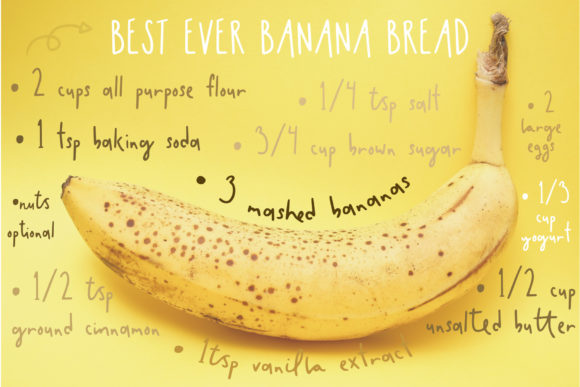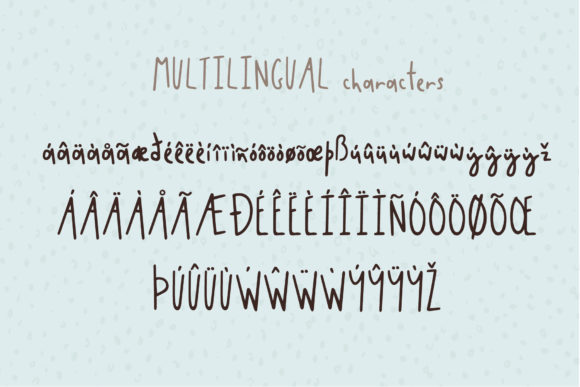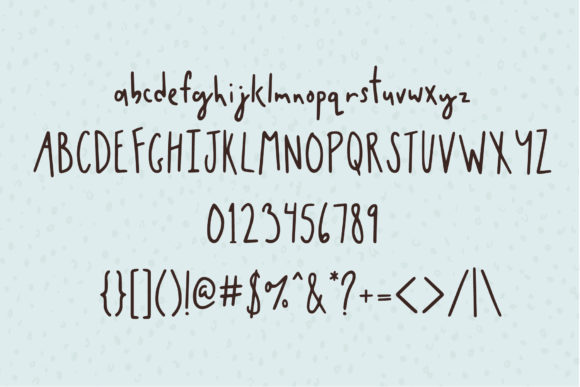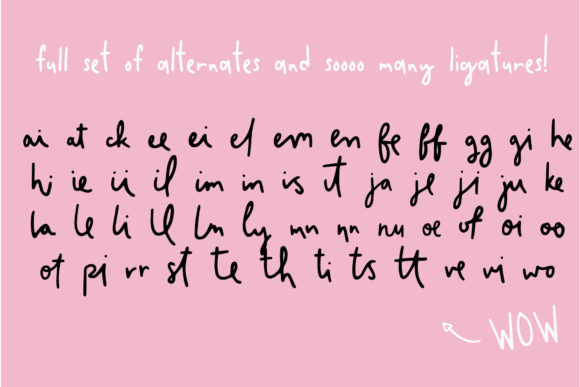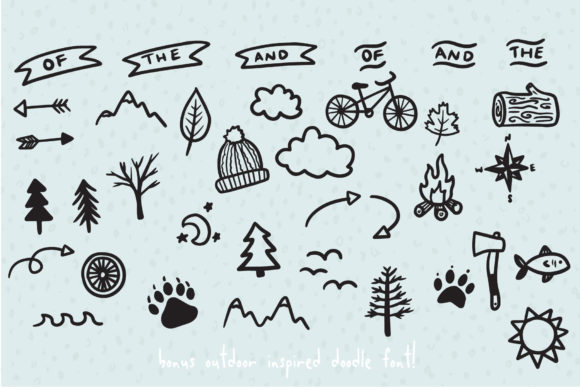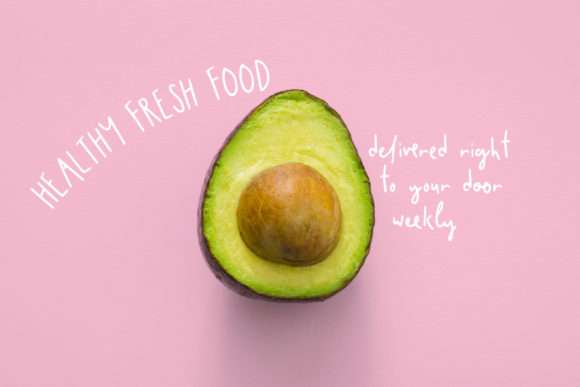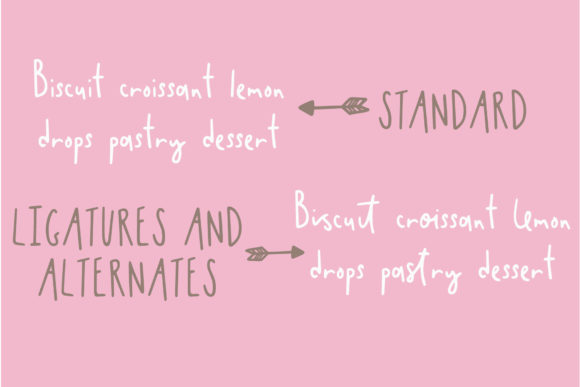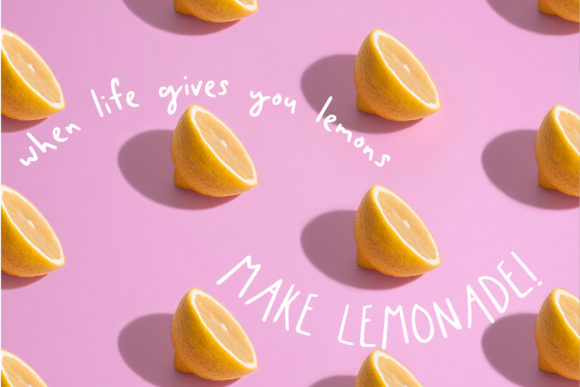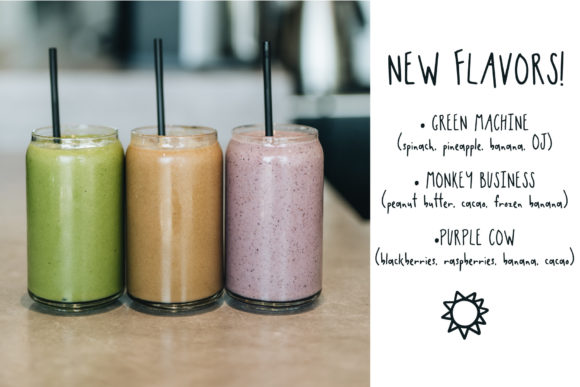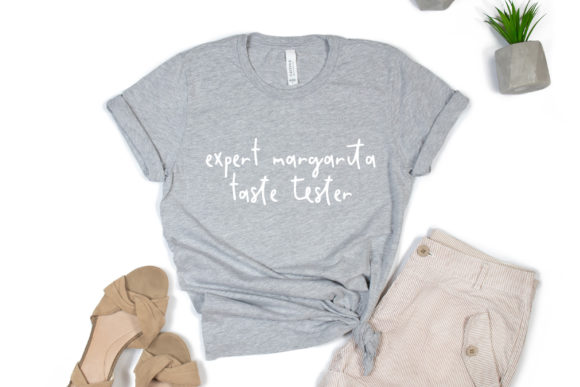
Taconic Font
About Taconic Font
Taconic is a delightful and quirky handwritten font designed to evoke a playful and carefree ambiance. Inspired by a hiking journey through the Taconic mountain range, this font brings a touch of nature’s whimsy to your designs.
What sets Taconic apart is its playful feel, making it an ideal choice for a variety of design applications. To keep your designs dynamic and vibrant, Taconic incorporates a set of stylistic alternates for both uppercase and lowercase letters. Additionally, it boasts over 50 discretionary ligatures, adding even more creative possibilities to your typographic compositions.
This font’s versatility makes it well-suited for a range of projects, including editorial designs, marketing materials, blogs, and various other creative endeavors. Taconic effortlessly injects a sense of spontaneity and charm into your work, ensuring that your designs stand out with a lighthearted and distinctive touch.
Perfect for conveying a friendly and approachable tone, Taconic is an excellent choice when you want to infuse your designs with a hint of personality. Its handwritten style adds warmth and authenticity, making it a great fit for projects where a more casual and relaxed vibe is desired.
In summary, Taconic is not just a font; it’s a design journey inspired by nature and brought to life with a playful spirit. With its stylistic alternates and discretionary ligatures, this font opens up a world of creative possibilities, making it a valuable asset for designers seeking to inject a dose of quirkiness and charm into their projects.